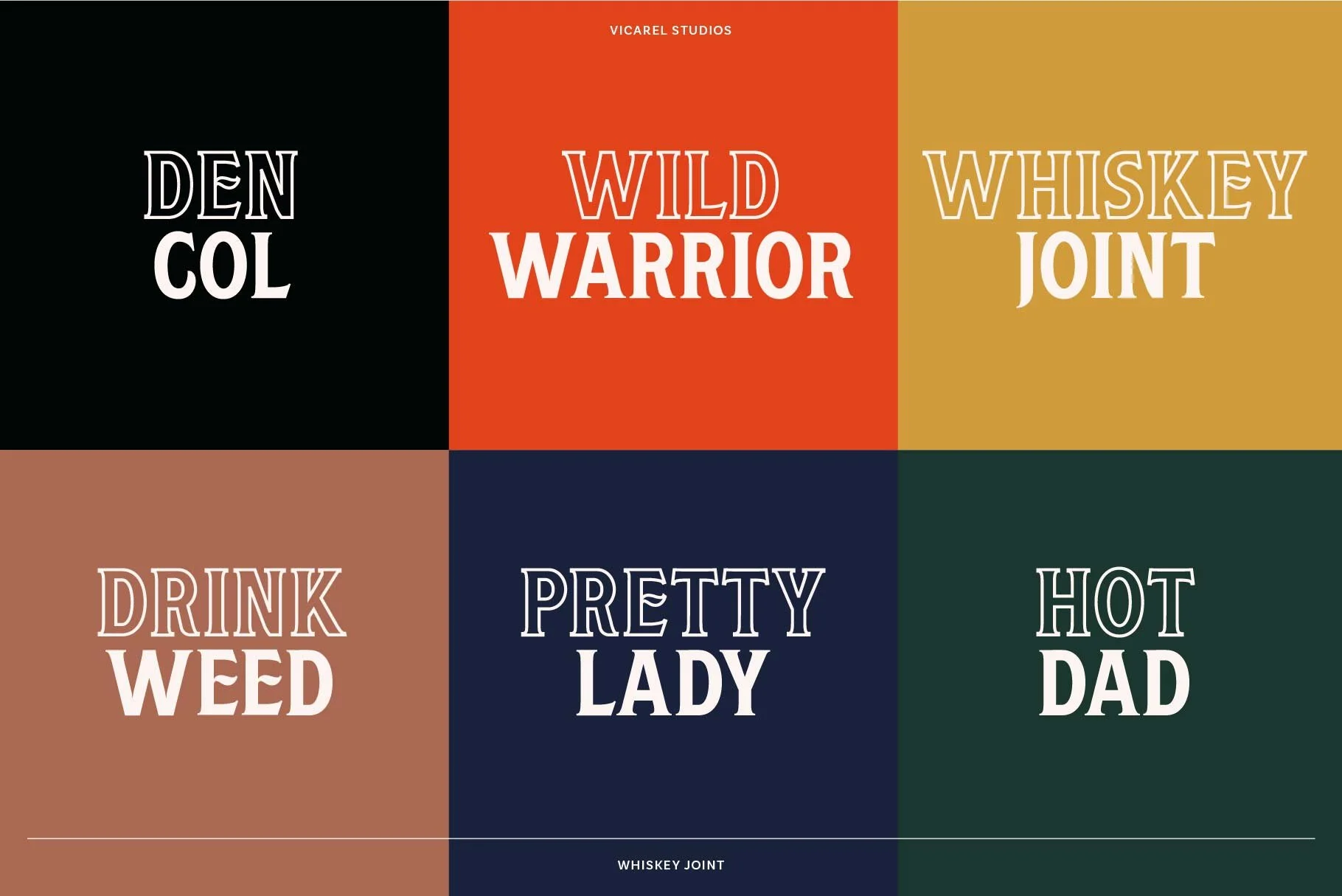
Creating Whiskey Joint: An Effortlessly Vintage Hand-Drawn Typeface
Creating Whiskey Joint, a refined and timeless display font, inspired by whiskey label fonts and cannabis fonts.
In 2018, Vicarel Studios had the opportunity to rebrand and reposition Native Roots, Colorado’s largest cannabis dispensary.
This new and improved copper-plate style logotype with its tall, condensed forms served as a beautiful foundation for a sophisticated yet approachable typeface with timeless inspiration.
While our inspirations are rooted in vintage whiskey fonts, Whiskey Joint comes and styles suited well for premium cannabis brands, bourbon or whiskey labels, and so much more.
Whiskey Joint font comes in four enduring and classic styles: regular, outline, worn and worn outline give aesthetic diversity—perfect for styling logotypes, labels, invitations, stationary, branding, and apparel for liquor brands, coffee shops, cannabis dispensaries and more. This font, inspired by the look and feel of whiskey and weed adds an effortlessly vintage touch that pairs oh so nicely with just about any project.
There was just enough variation in the letters AEINORSTV of the Native Roots logotype to create a solid A–Z rough draft in a 30-40 minute speed round. From there, we took our sweet time to take notes and consider the nuances of each character. Referencing other typefaces (such as Copperplate) as well as classic whiskey labels made it easier to harness the vintage look and feel we were aiming to achieve. Using templates for letters that share similar widths (BELFPRS / MW / OCDGQ / HAVNTUXZ) also helped us ensure that the whole system felt visually consistent.